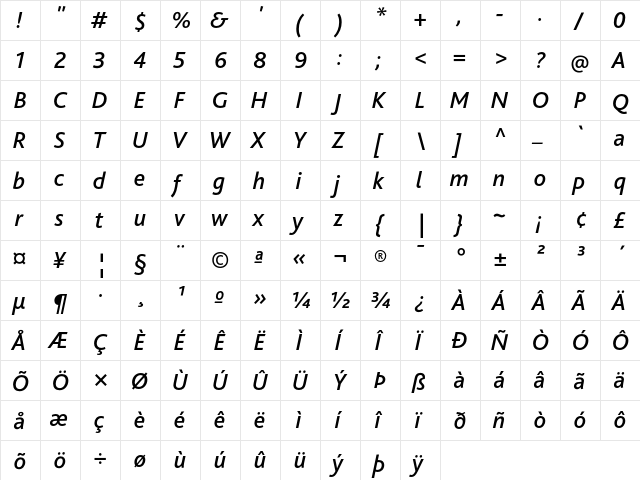
Bliss Pro Medium Italic
Bliss Pro is a composed and adaptable typeface that performs quietly and consistently across a wide range of design contexts. The dynamic lean of this cut emphasises speed and emphasis in any layout.
Pro Tip: Use Bliss Pro for emphasis, pull quotes, and subheadings where its slanted energy can add rhythm to the layout.